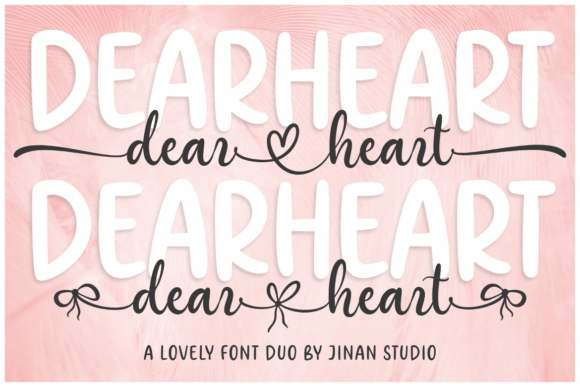
Unlock the Warmth of Your Designs with Dearheart Font
Remember the feeling of receiving a handwritten letter from a loved one, filled with love and personality? That’s exactly the kind of warmth and charm that the Dearheart Font brings to your designs. This adorable font duo is a perfect blend of a bold handwritten display font and a sweet, flowing script.
Whether you’re creating invitations, branding, quotes, greeting cards, or stickers, the Dearheart Font is the perfect addition to your toolkit. Its smooth curves, playful accents, and heart-themed swashes will give your projects a lovely handmade feel that’s sure to capture attention. And with effortless access to all glyphs, swashes, and alternate characters thanks to its PUA-encoded design, you’ll be able to unleash your creativity without any limitations.
Dearheart Font Key Features
- Unique Characteristics: Dearheart features a unique, handwritten style with varying line widths and subtle irregularities, giving it a personal and emotive feel.
Dearheart Font Review
Overall, I’m quite fond of the Dearheart Font. ✨ It has a beautiful, whimsical feel to it that makes it perfect for projects that require a touch of elegance and romance. The font’s design is intricate and detailed, with a lovely texture that adds depth and visual interest.
One of the things that works well for Dearheart Font is its versatility. ✨ It can be used for a wide range of projects, from wedding invitations and greeting cards to branding and packaging. The font’s unique style also makes it perfect for creating eye-catching headlines and titles.
- ⚠️ Limited legibility at smaller font sizes: While Dearheart Font looks stunning at larger sizes, it can be difficult to read at smaller sizes, which may limit its use in certain contexts.
- ⚠️ May not be suitable for digital use: The font’s intricate design may not translate well to digital screens, which could lead to pixelation or distortion.
Overall, I think Dearheart Font is a beautiful and unique font that would be perfect for certain projects. However, its limitations should be taken into consideration before using it in certain contexts.